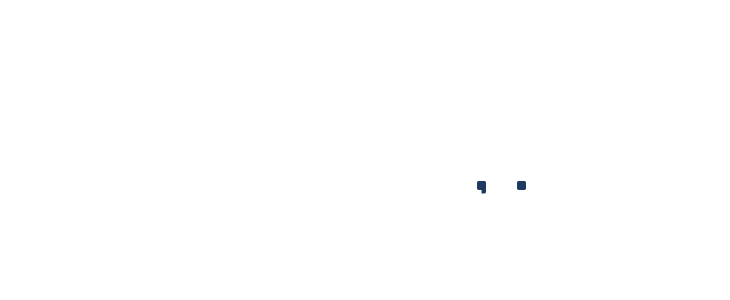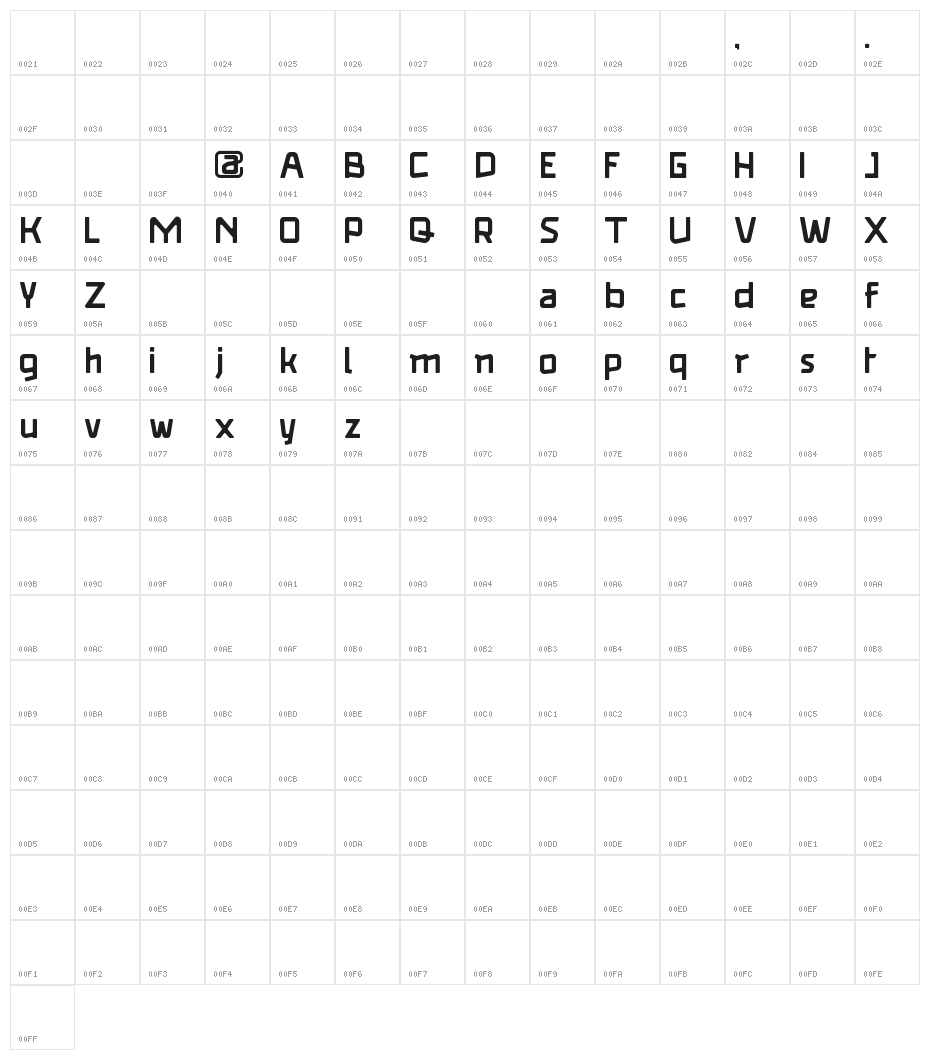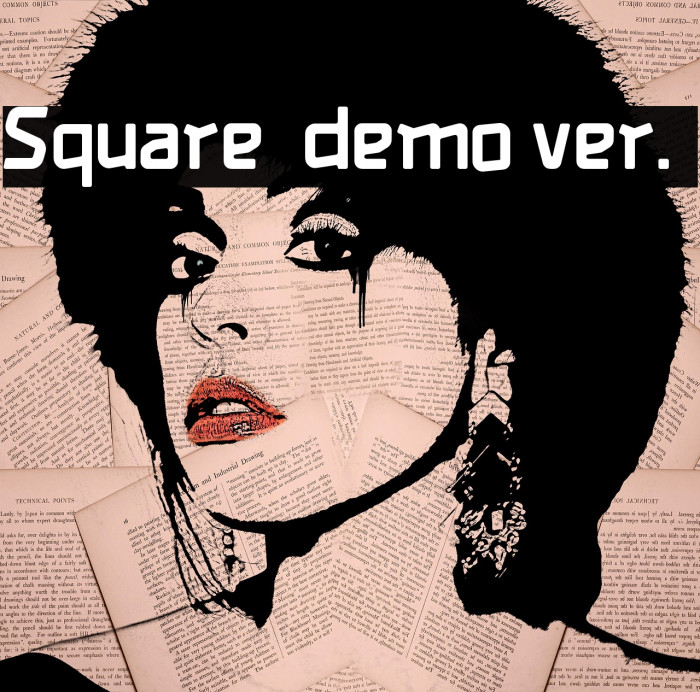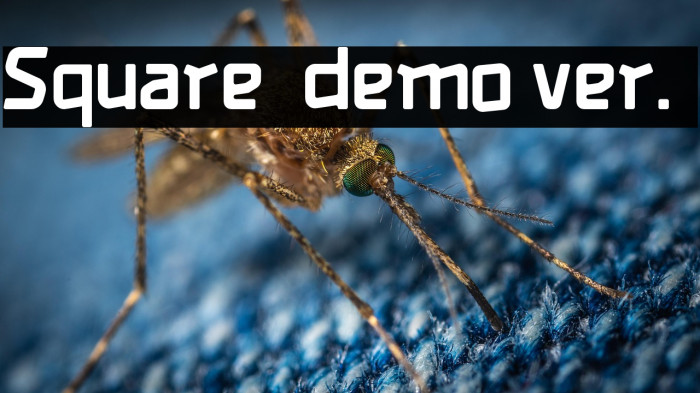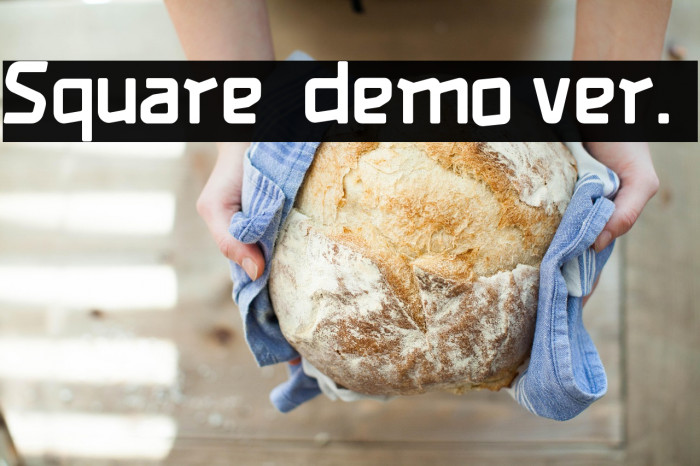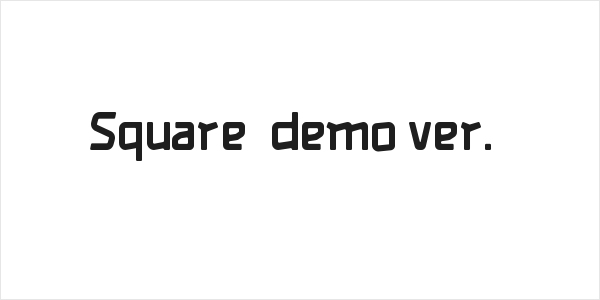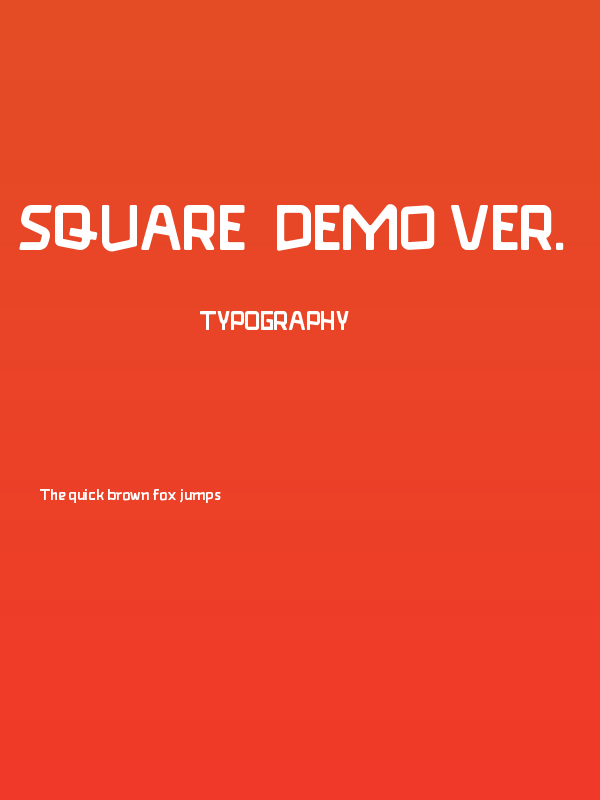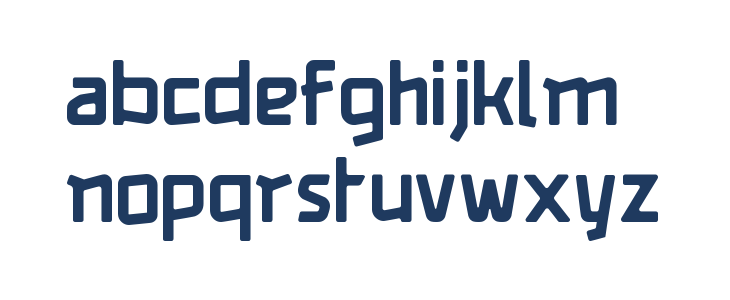
Square [demo ver.] Font
Square [demo ver.] Description
This font features a geometric and modern design with a distinct square-like structure. The characters are bold and uniform, with consistent stroke widths that give it a strong and sturdy appearance. The uppercase and lowercase letters maintain a cohesive style, with slight variations in curvature and angle that add a unique touch. The numbers and special characters follow the same design principles, ensuring a harmonious look across all elements. This font is well-suited for projects that require a contemporary and bold aesthetic.
| Proposed Projects | Ideal for branding, posters, headlines, and digital media that require a modern and bold statement. |